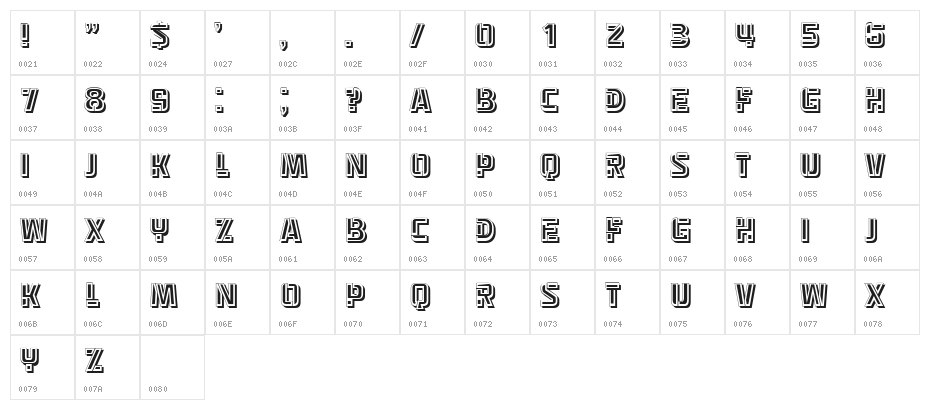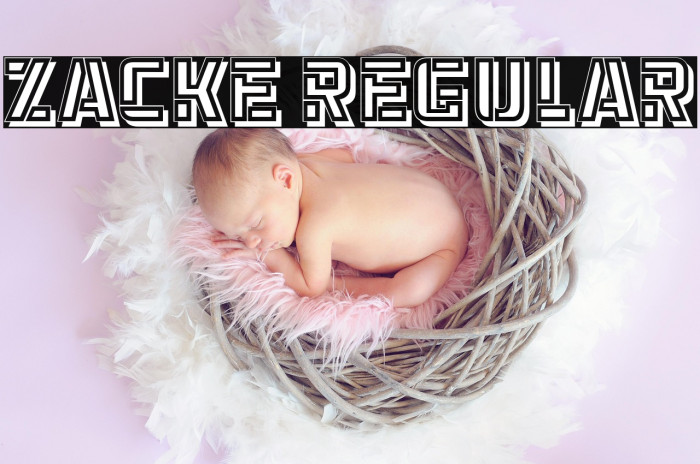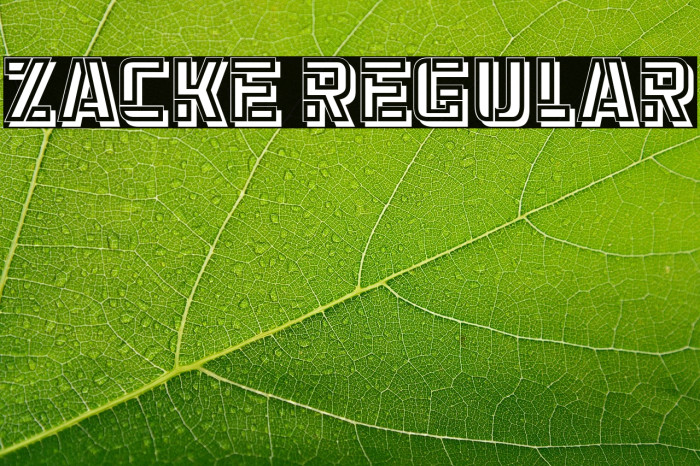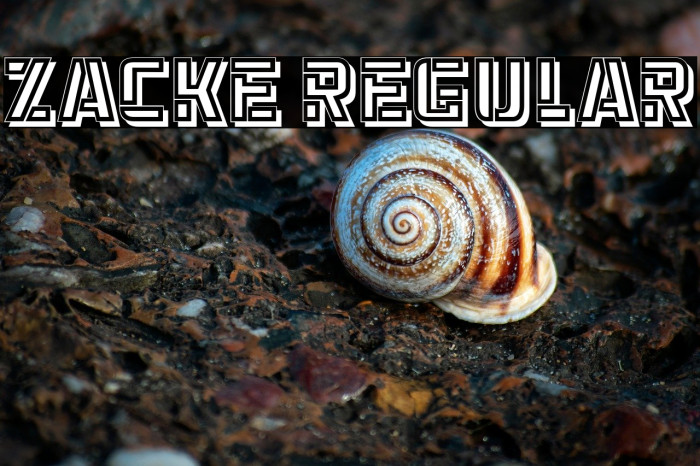
Zacke Regular Font
Zacke Regular Description
This font features a bold, geometric design with a three-dimensional effect created by its layered, shadowed outlines. The uppercase letters are distinct with sharp angles and clean lines, giving a modern and industrial feel. The numbers and special characters maintain this style, ensuring consistency across all glyphs. The font's structure is solid and impactful, making it ideal for attention-grabbing headlines or titles. Its unique style is both decorative and functional, offering versatility in various design contexts.
| Proposed Projects | Ideal for posters, logos, branding materials, and any design requiring a strong visual impact. |